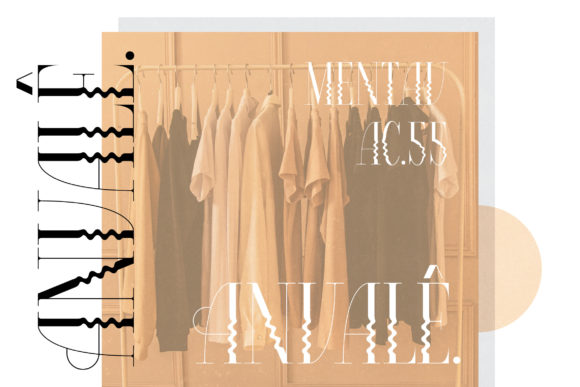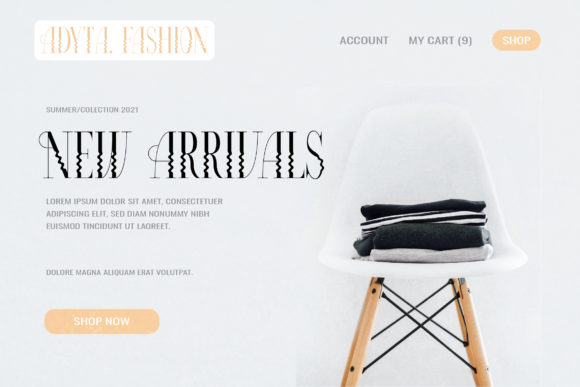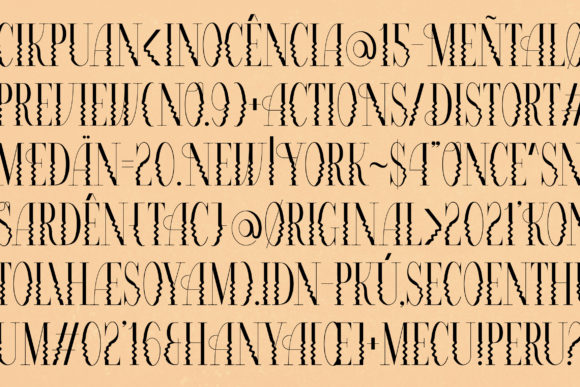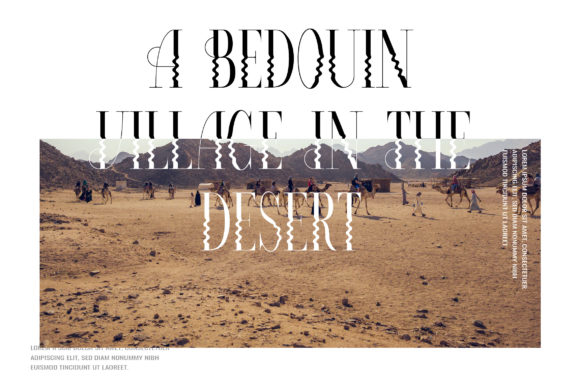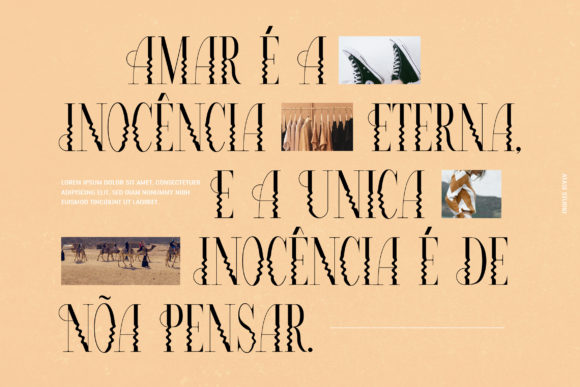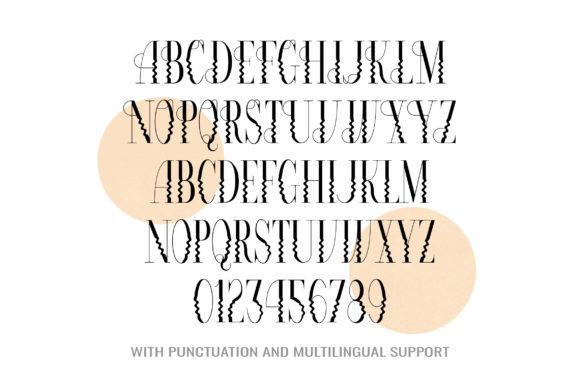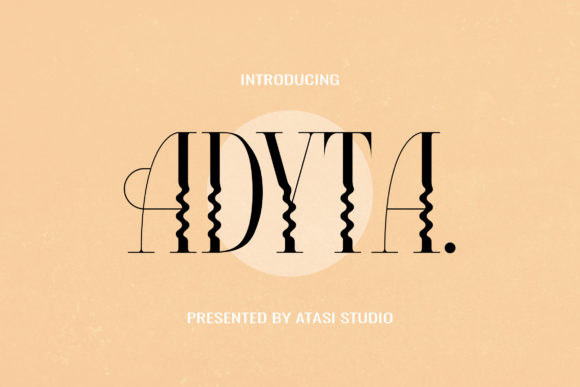
Unleash the Cosmic Potential of Your Designs with Adyta Font
In the vast universe of typography, there exist fonts that are as unique as they are functional. Among them, the Adyta Font stands out as a beacon of creativity and quirkiness. Designed to transcend the ordinary and make your creations look out of this world, Adyta is not just a font; it’s an experience. Whether you’re a seasoned designer or a passionate crafter, Adyta offers a plethora of possibilities to elevate your projects.
The Essence of Adyta Font
Adyta is an incredibly unique and a bit quirky display font, expertly crafted to inject a dose of cosmic charm into any design. Its distinctiveness lies in its ability to blend whimsy with sophistication, making it a versatile tool for a wide range of creative endeavors. From captivating headlines to compelling titles, Adyta brings a certain je ne sais quoi that is hard to ignore.
Why Choose Adyta Font?
- Unique Appeal: In a sea of fonts, Adyta’s quirky yet elegant design ensures that your work stands out. Its uniqueness is not just about aesthetics; it’s about making a statement.
- Versatility: Adyta’s versatility is one of its strongest assets. It can be used across various platforms and projects, from digital content and branding to print materials and crafts.
- Easy to Read: Despite its unique flair, Adyta maintains a high level of readability, ensuring that your message is conveyed effectively.
- Customization: Adyta offers ample opportunities for customization, allowing designers to tweak and adjust the font to fit their project’s specific needs.
Applications of Adyta Font
The applications of Adyta are as vast as one’s imagination. Here are a few ideas to get you started:
- Branding and Logos: Use Adyta to create a memorable brand identity that reflects your business’s personality and values.
- Digital Content: Enhance your website, blog, or social media posts with Adyta’s distinctive charm, making your content more engaging and shareable.
- Graphic Design: From posters and flyers to brochures and business cards, Adyta can add a touch of uniqueness to any graphic design project.
- Crafts and DIY Projects: Adyta can also be used in various craft projects, such as handmade cards, scrapbooking, and other paper crafts, adding a personalized touch.
Tips for Using Adyta Font Effectively
To maximize the impact of Adyta, consider the following tips:
- Pair with Complementary Fonts: Combine Adyta with simpler fonts to create contrast and balance in your designs.
- Experiment with Colors: Don’t be afraid to play with different colors and gradients to enhance Adyta’s cosmic vibe.
- Adjust and Customize: Take advantage of Adyta’s customization options to ensure it fits perfectly with your project’s tone and style.
Adyta Font is more than just a typographical choice; it’s a creative statement. Its unique blend of quirkiness and elegance makes it an invaluable asset for designers and crafters looking to add a cosmic twist to their work. With its versatility, readability, and customization potential, Adyta is poised to become your go-to font for projects that demand something out of the ordinary. So, unleash your creativity, explore the possibilities with Adyta, and watch your designs soar to new heights.